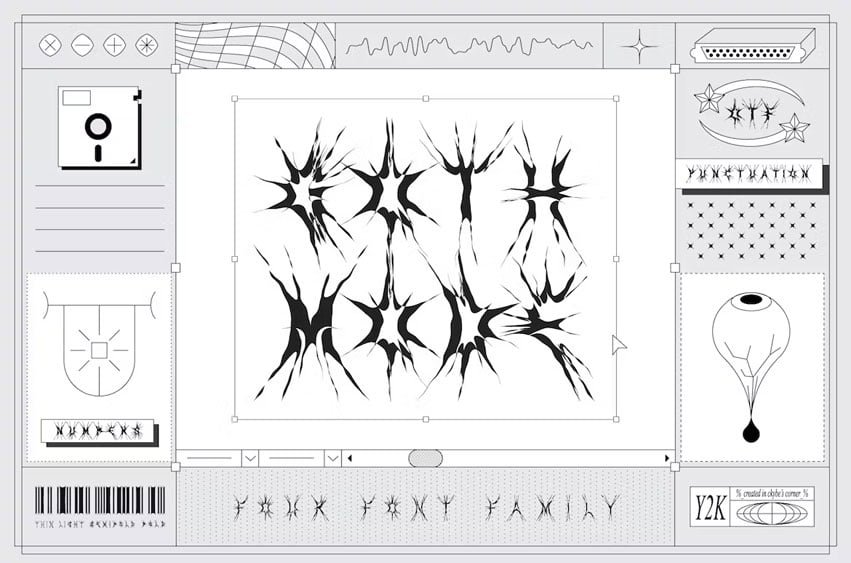
Goth Mode Y2K Font Dark Y2K Font Family. Get ready to embrace the nostalgia of the early 2000s with our GOTH MODE font family. This trendy typeface is the perfect fusion of vintage Y2K aesthetics and a dark, edgy style, making it ideal for all your creative projects that demand a hint of cyberpunk allure.
The font’s dark and mysterious appearance adds an element of intrigue to your designs. Whether it’s for a textile print, social media post, or death metal album cover, GOTH MODE sets the mood perfectly.